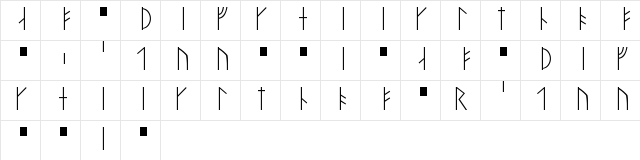
OlofR Viking 16 characters Regular
Design Context for OlofR Viking 16 characters Typeface
OlofR Viking 16 characters is a composed and adaptable typeface that performs quietly and consistently across a wide range of design contexts.